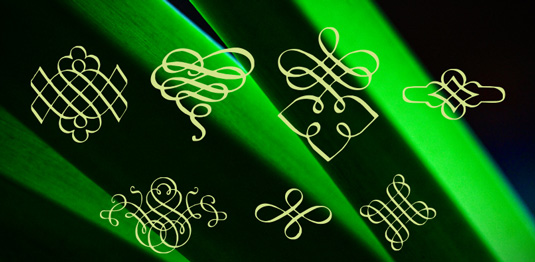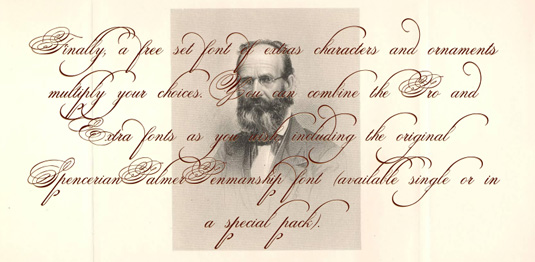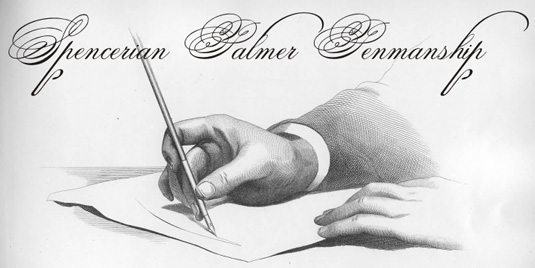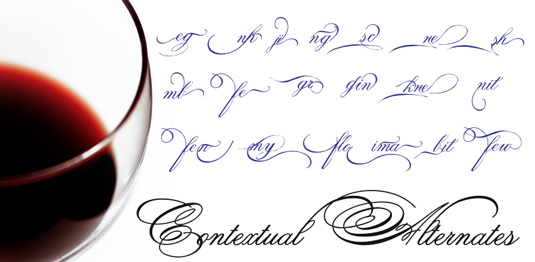
Font of the day: Spencerian Palmer Penmanship
Spencerian Palmer Penmanship by Paulo W
Created by type designer Paulo W, the concept for Spencerian Palmer Penmanship came from the Palmer’s Penmanship guides and manual from the 19th century.